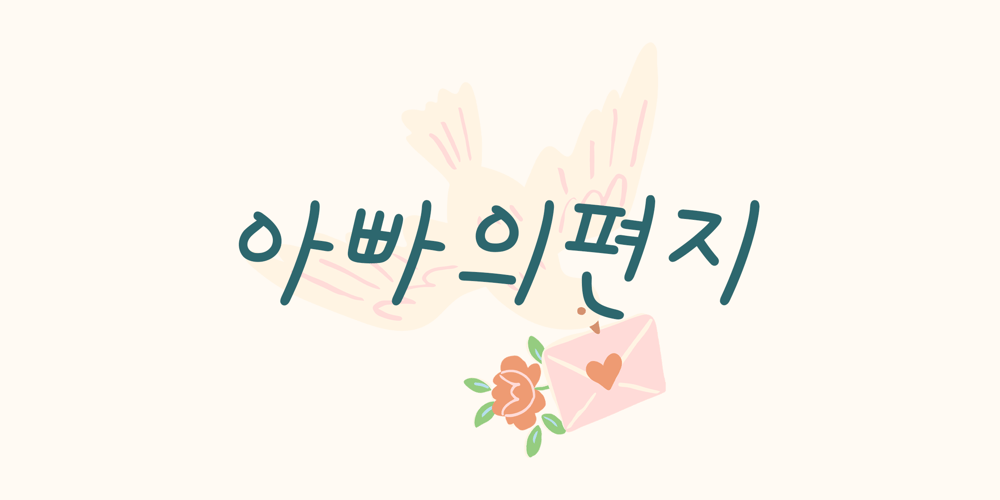
Od Fathers Letter Font Family was designed by Together Group and published by TogetherGroupFonts. Od Fathers Letter contains 1 styles and family package options. 아이에게 사랑하는 아빠의 마음을 담아 정성스럽게 써 내려가는 느낌의 서체입니다.